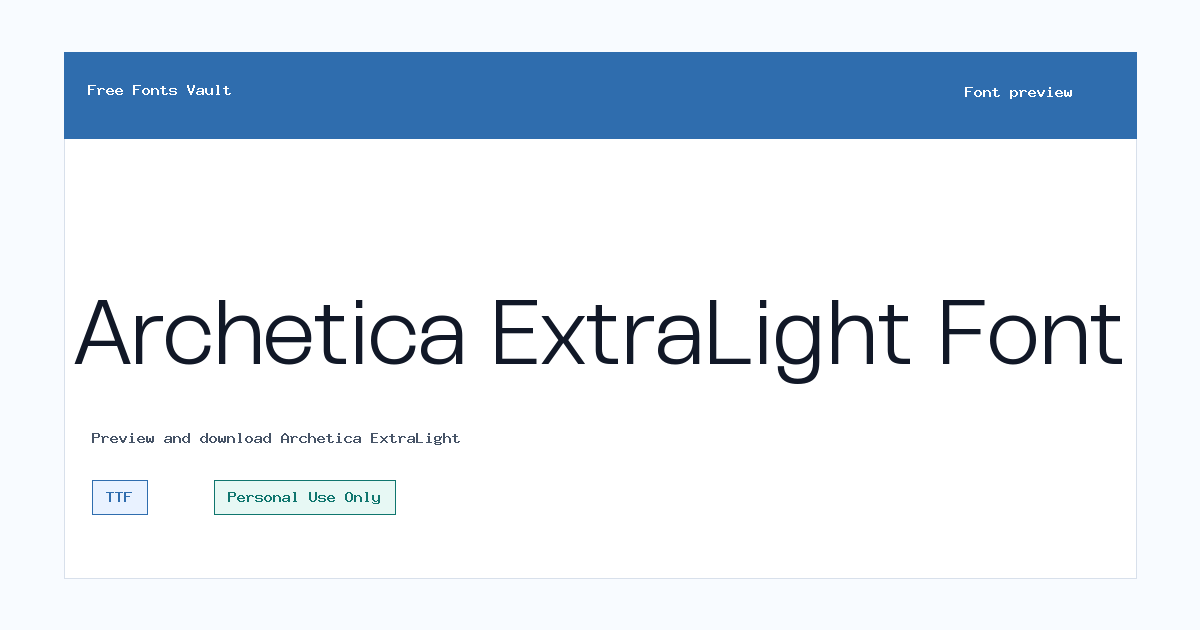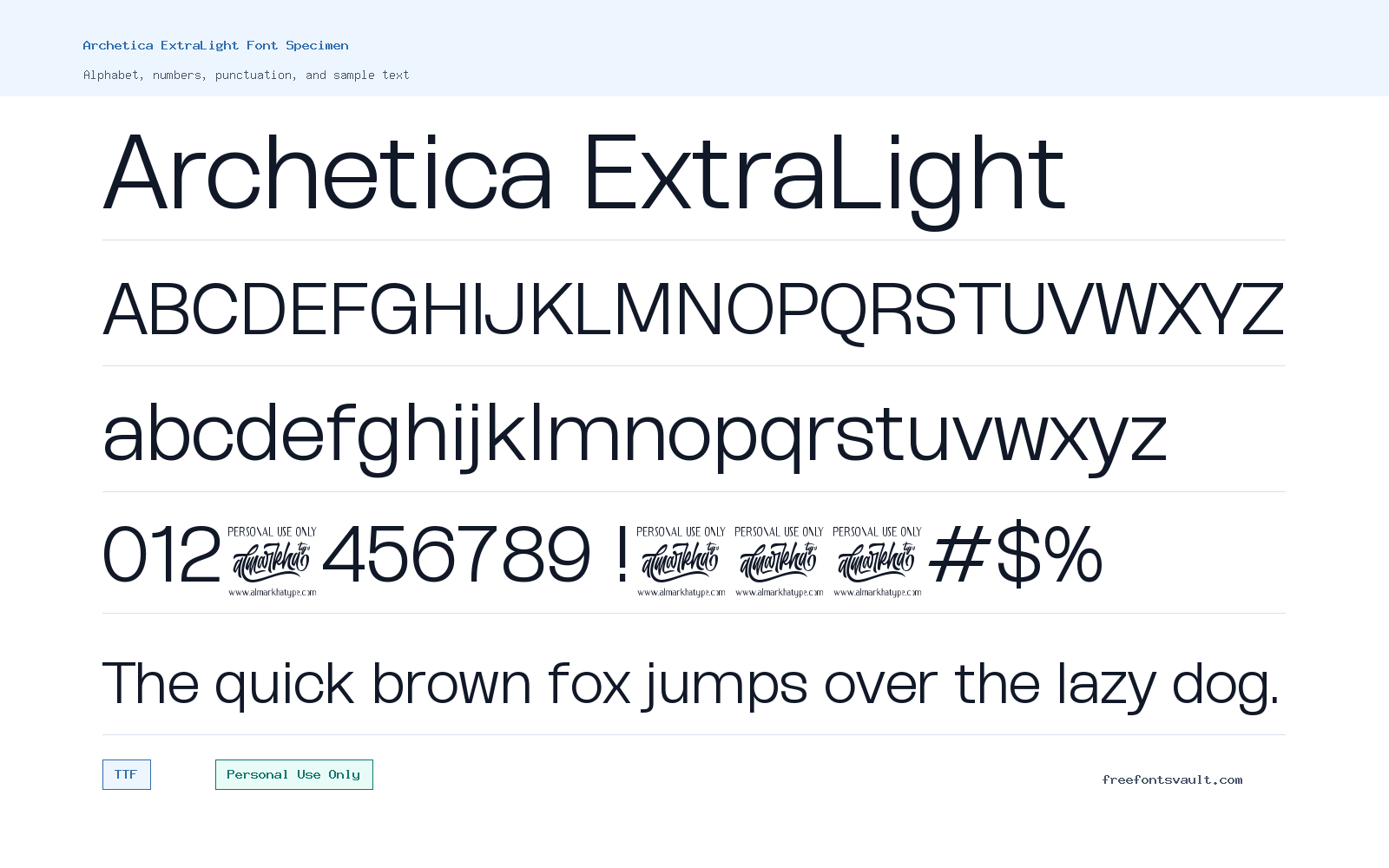
Archetica ExtraLight
- Designer Ridwan Fadilah & Malik Wisnu
- Foundry Almarkhatype
Archetica ExtraLight font.
Archetica ExtraLight is a light-weight sans serif font from the Archetica family, designed for clean typography, airy layouts, and display settings where a softer, lighter voice is needed.
About Archetica ExtraLight
Archetica ExtraLight has the restrained look of a modern sans serif, with thin strokes that give text a spacious and polished feel. Because this cut is lighter than a regular text face, it works best when the design gives it enough room to breathe. Try it in large headings, short labels, editorial-style title blocks, portfolio mockups, stationery concepts, and clean social graphics. The lighter stroke can make a layout feel more refined, but it also needs careful sizing and contrast so the letters do not disappear on busy backgrounds.
For logo work, Archetica ExtraLight can be useful when you want a minimal wordmark direction rather than a heavy brand mark. Test it with short names, wide letter spacing, and simple color palettes. For posters and web mockups, use it where the message is short and the type can be large. It is not the safest choice for small body copy, long paragraphs, or low-contrast mobile text because extra-light styles can lose clarity at small sizes. If you are building a complete layout, pair it with a stronger sans serif, a readable serif, or a slightly heavier weight for body text so the hierarchy stays clear.
- Light sans serif style suited to large, clean display typography
- Normal upright style with a listed font weight of 300
- Best suited to short text where thin strokes can remain clear
- Works well in minimal layouts, title treatments, and refined mockups
- Minimal logo concepts and wordmark drafts
- Large headings for posters, covers, and editorial layouts
- Clean web and app mockups where typography has enough contrast
- Portfolio graphics, presentation titles, and social media visuals
- Stationery concepts, packaging mockups, and simple brand direction boards
Archetica ExtraLight is credited to Ridwan Fadilah & Malik Wisnu, with Almarkhatype listed as the foundry. The designer/foundry website is almarkhatype.com.
Use Archetica ExtraLight at larger sizes and with strong contrast. It can look elegant in a clean layout, but thin strokes are less forgiving than regular or bold fonts. Avoid placing it over detailed photos unless you add a calm overlay or choose a darker/lighter color combination that keeps the letters readable. For web mockups, test it on desktop and mobile sizes before committing. For pairing, let Archetica ExtraLight handle the headline or logo-style text, then choose a more readable companion font for paragraphs, navigation, captions, and form labels.
What kind of font is Archetica ExtraLight?
It is a light-weight sans serif font. Its thin, clean style is best for large display text, short headings, logo concepts, posters, and modern layout mockups.
Can I use Archetica ExtraLight for a logo?
Is Archetica ExtraLight good for body text?
It is better for short display text than long reading. For paragraphs, pair it with a more readable font or a heavier weight so the text stays clear.
How should I pair Archetica ExtraLight?
Use it for the main title or short brand-style text, then pair it with a clearer regular-weight sans serif or a simple serif for body copy. Keep the supporting font practical so the thin headline style remains the focus.